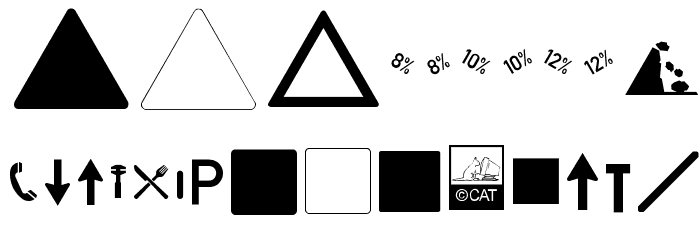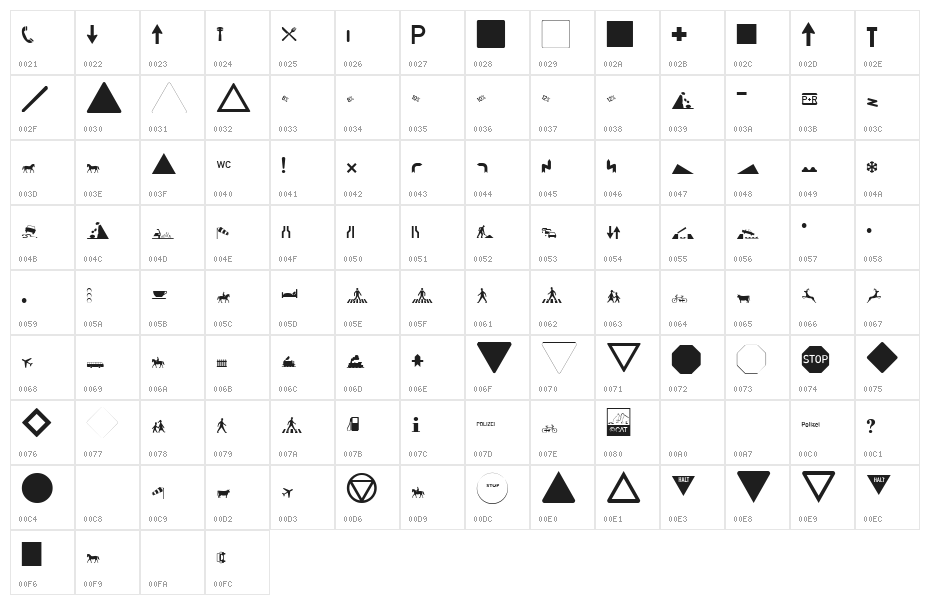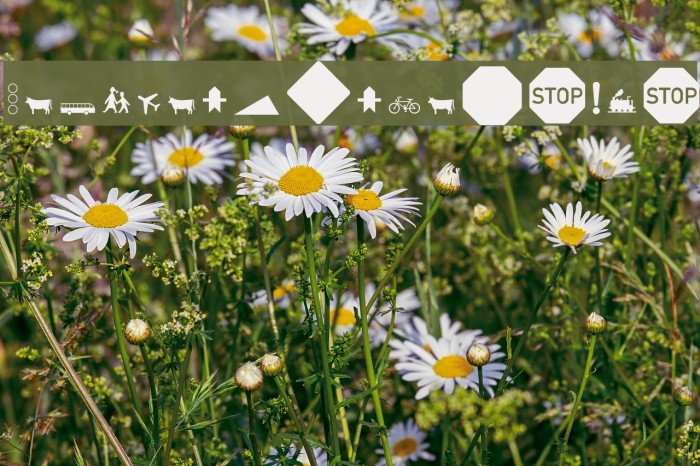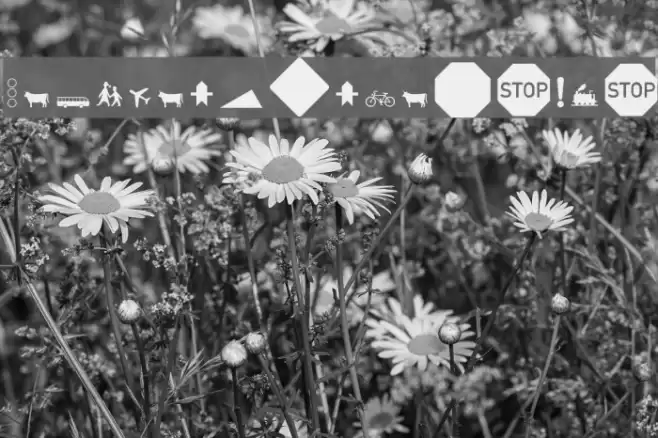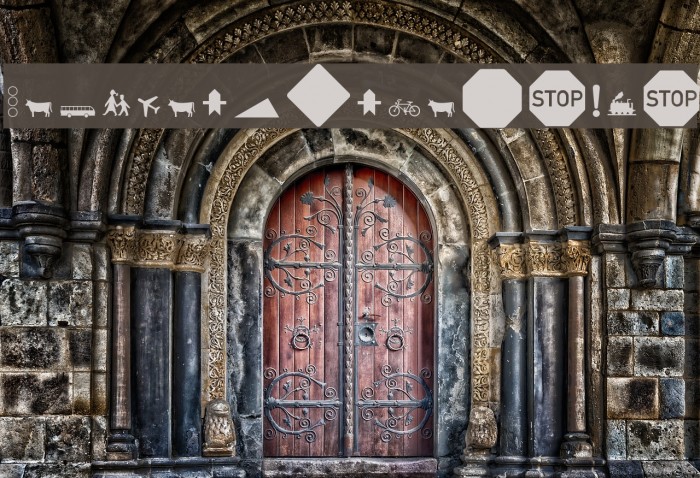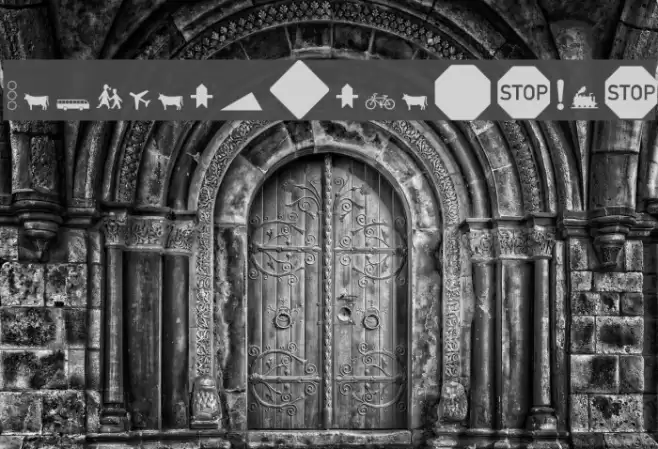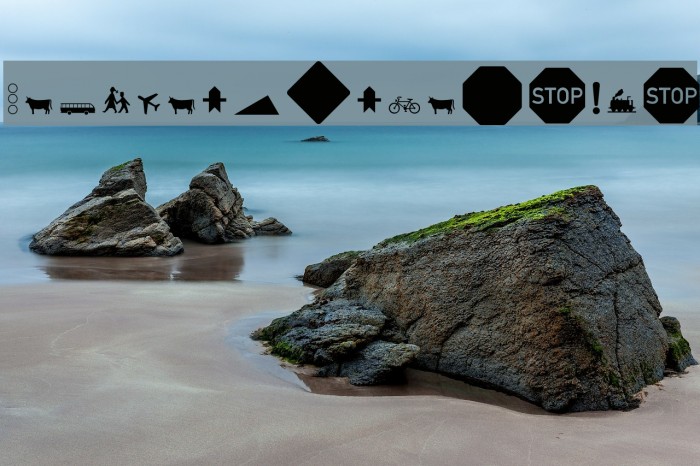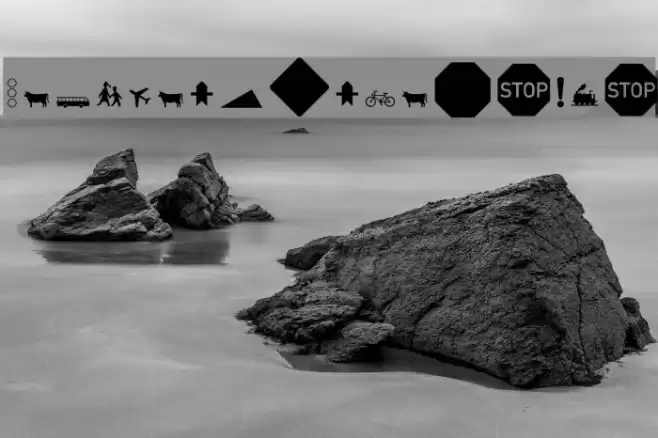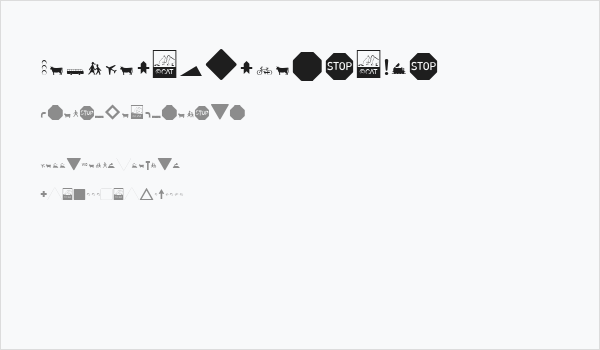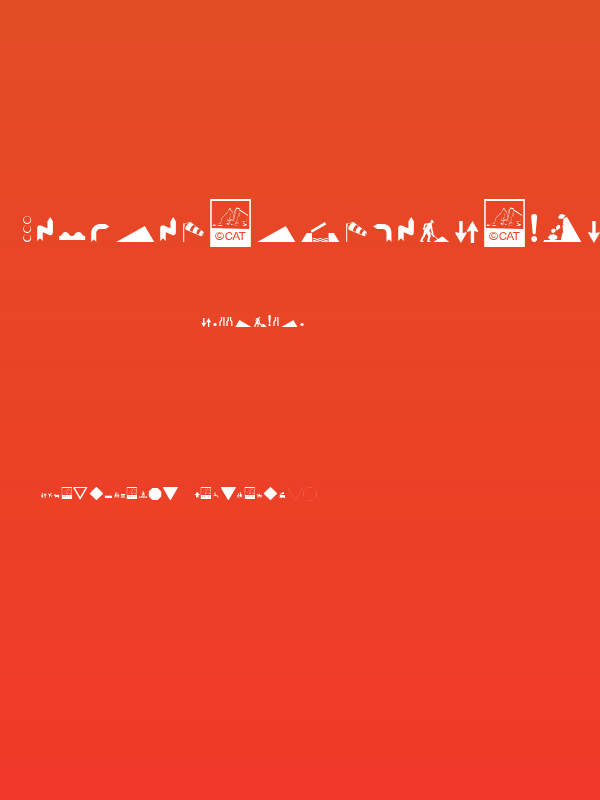
Zeichen Hundert Alt Font
Zeichen Hundert Alt Description
A pictogram-based dingbat font featuring a variety of road signs, traffic symbols, geometric shapes, and transportation-related icons. The glyphs are solid, high-contrast silhouettes with clear, simple outlines, designed for instant recognition and legibility.
| Overall Style | Functional, Modern, Pictographic |
| Use Case | Icons, Signage, Infographics, Educational graphics |
| Proposed Projects | Wayfinding signage, educational materials, infographics, transportation maps, safety manuals. |